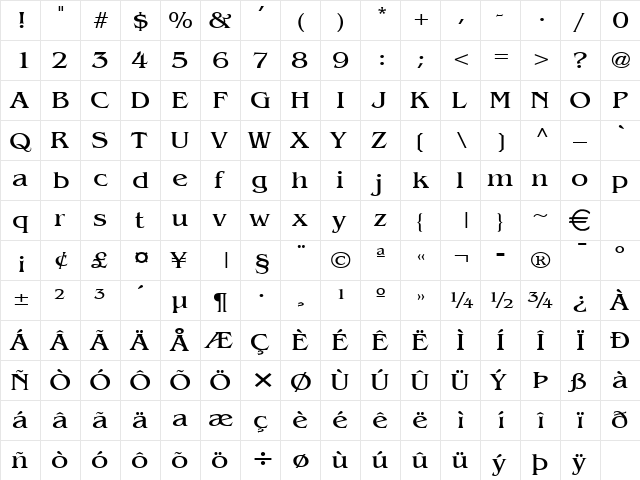
BangleWide Normal
Design Context for BangleWide Typeface
BangleWide offers clean, dependable letterforms without strong stylistic allegiance, making it a practical choice for designers who need flexibility.